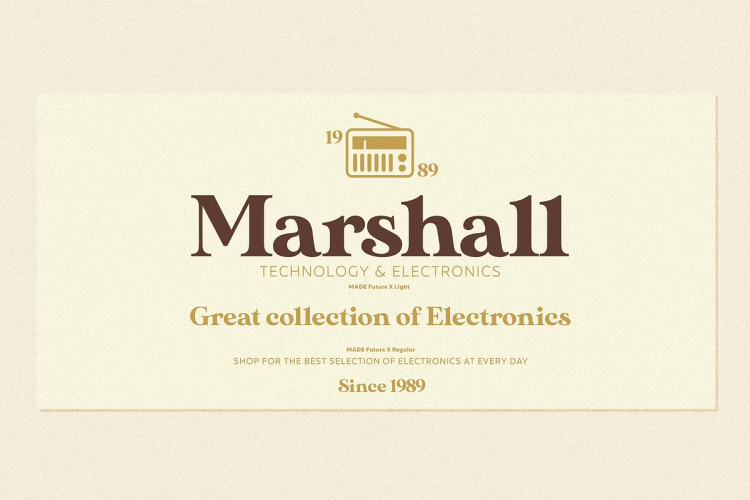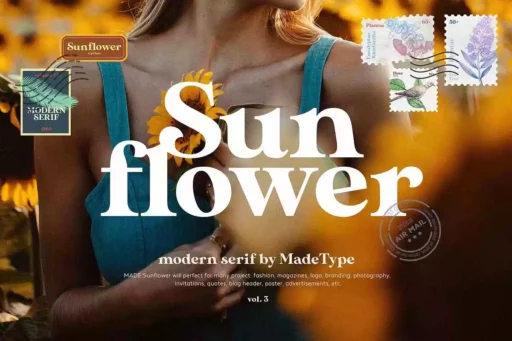
MADE Sunflower Font
MADE Sunflower is a modern serif font by Madetype that has a classic look with just a hint of modern influences. It has the ideal balance of vintage and current style.
This is a very useful font that will suit any project. If you are creating a brand for high fashion, designing a page for a stylish magazine or creating a logo, MADE Sunflower will help to refine your design. It has simple shapes and refined accents which means it is suitable for captions and tags in photos, invitations, quotes, headers of blogs and websites, and posters. It is also perfect for glossy advertisements, elegant postcards, among others.
MADE Sunflower comprises of all the capital and small case letters, numerals and symbols. Also, it has support for multilingual interfaces which means this font is ideal to use in projects that may involve different languages.
MADE Sunflower Font gives long-form text a classic, trustworthy rhythm — ideal for magazine spreads, annual reports and book interiors.
Pair MADE Sunflower Font with generous letter-spacing for wordmarks in fashion, hospitality, wine and jewellery branding.
Use MADE Sunflower Font for slide titles in Keynote, PowerPoint or Google Slides to add authority without looking dated.